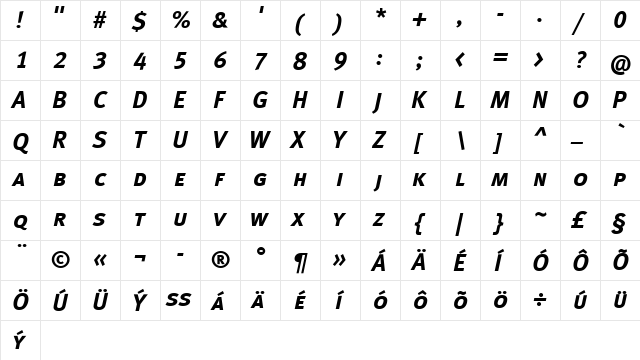
MetaBoldCELF Medium Italic Font Preview
Design Context for MetaBoldCELF Typeface
MetaBoldCELF offers clean, dependable letterforms without strong stylistic allegiance, making it a practical choice for designers who need flexibility. Its italic angle brings a sense of urgency and motion to the letterforms. The heavy weight commands attention and anchors typographic hierarchies.
Pro Tip: Try MetaBoldCELF for annotation and caption copy alongside an upright companion — the contrast in angle creates a dynamic but ordered typographic system.